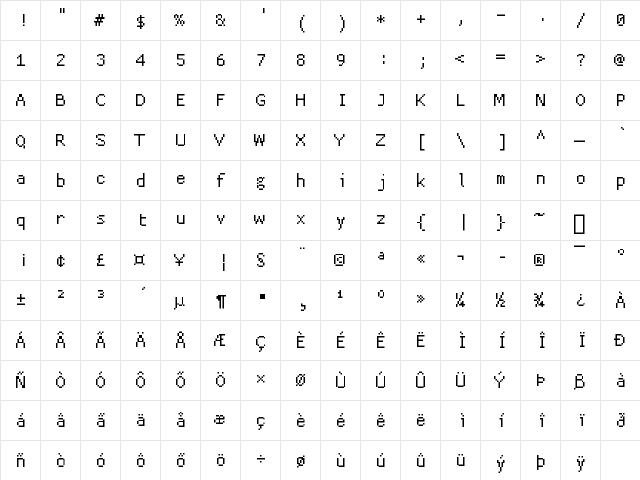
basis33 Regular
| Designer | Tristan Grimmer, Manchson |
Design Context for basis33 Typeface
basis33 takes a measured approach to typography — its balanced proportions and neutral character make it a reliable workhorse for both digital and print work.